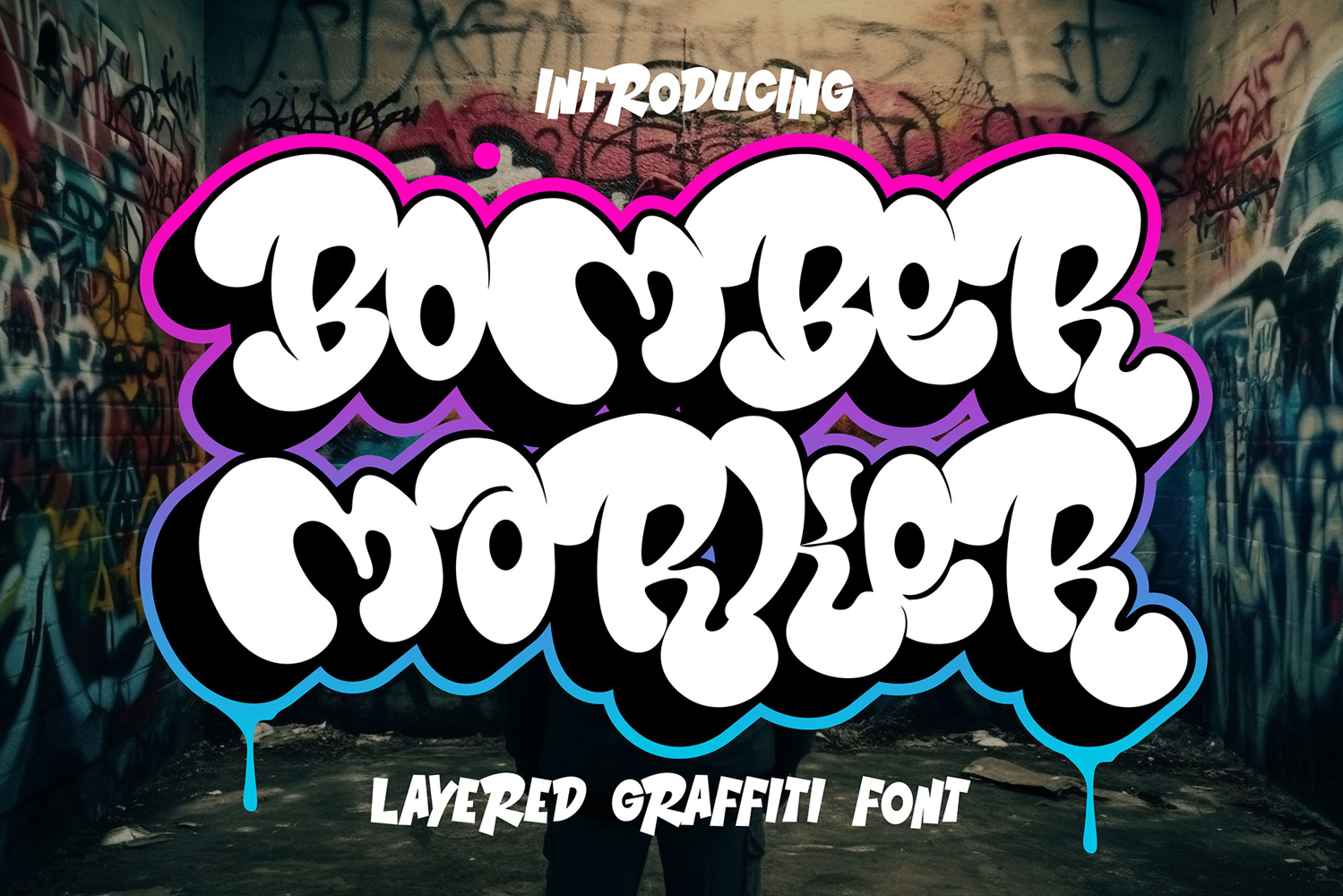
Bomber Marker - Layered Graffiti Font
Unleash the raw energy of street art with Bomber Marker, a bold and dynamic layered graffiti font designed to bring your designs to life. Inspired by urban tagging and freestyle bombing, this font captures the essence of street culture with its rugged strokes and authentic hand-drawn aesthetic.
✔ Layered System – Create eye-catching 3D effects with Base, Shadow, and Outline layers.
✔ Authentic Graffiti Style – Handcrafted for a natural, marker-drawn look.
✔ All-Caps Design – Perfect for strong headlines, posters, and branding.
✔ Multilingual Support – Covers multiple languages for global creativity.
✔ Versatile Use – Ideal for streetwear, album covers, sports branding, stickers, and urban designs.
Whether you’re designing bold logos, eye-popping posters, or edgy apparel, Bomber Marker will inject rebellious street energy into your work. Tag your creativity and make a statement today! 🚀🎨